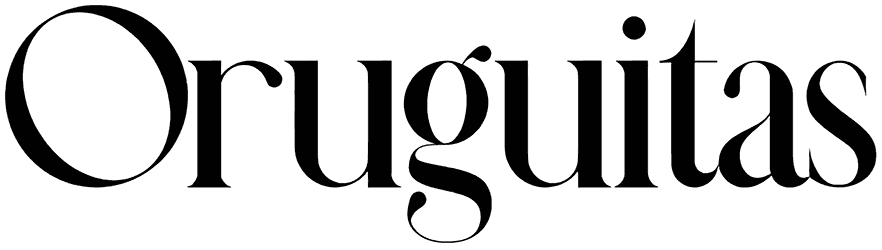
Oruguitas Font
Everything about a serif font like this one, a classic visual and confident vibe, is capturing, and if your design needs a professional mood, this is a nice pickup. The characters of this elegant font can add a charming…
Everything about a serif font like this one, a classic visual and confident vibe, is capturing, and if your design needs a professional mood, this is a nice pickup. The characters of this elegant font can add a charming form to your restaurant facade. Test Oruguitas font for your new layout and amaze your followers.